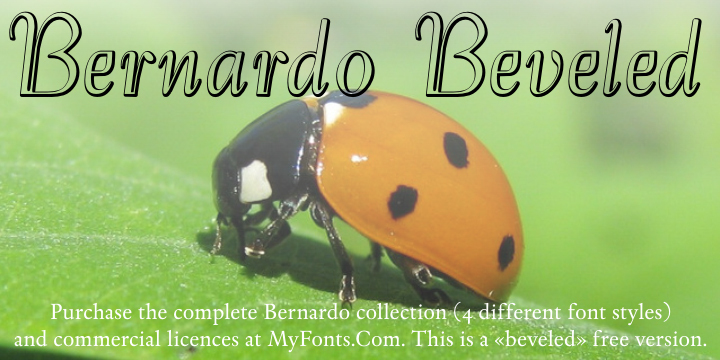
Bernardo Beveled by Iza W of IntellectaDesign is a free calligraphic script with tall, looping letters and a fine beveled outline. Its strokes shift sharply between broad curves and hairline turns, giving the forms an engraved, almost glass-cut appearance. The lettering feels formal but lively.
Fashion and theatrical themes suit its sweeping scale and decorative inner lines, making it useful for perfume packaging, event invitations, and music posters. It is strongest in a title treatment, where the long curves and unusual outlined depth can become part of the decorative artwork rather than merely naming it.
Bernardo Beveled, by Intellecta Design, is a free version with a beveled style.